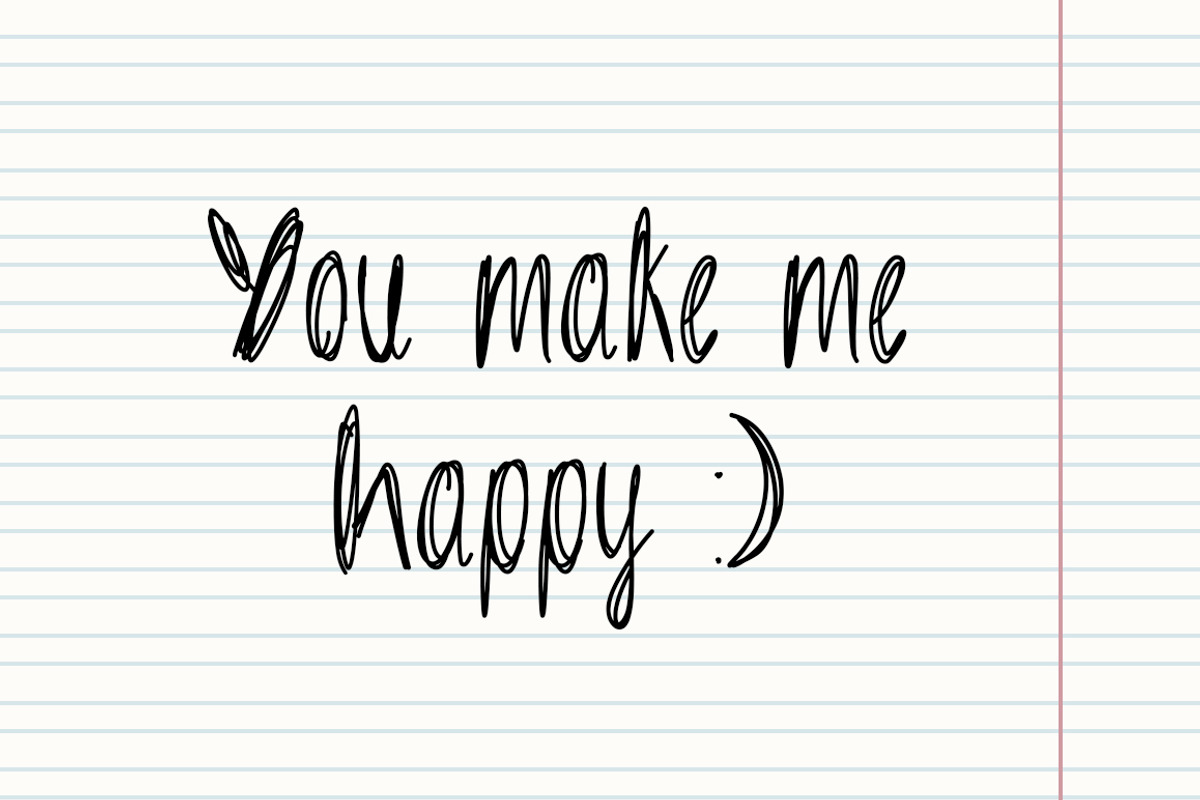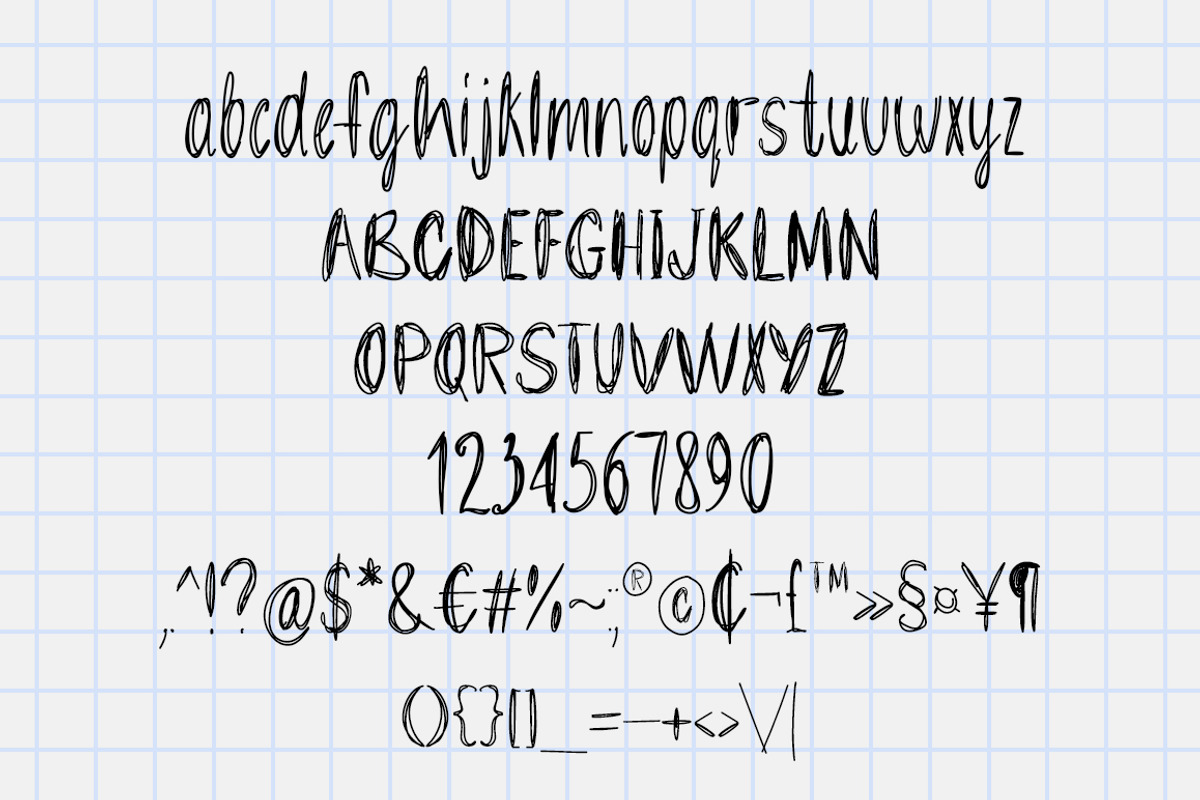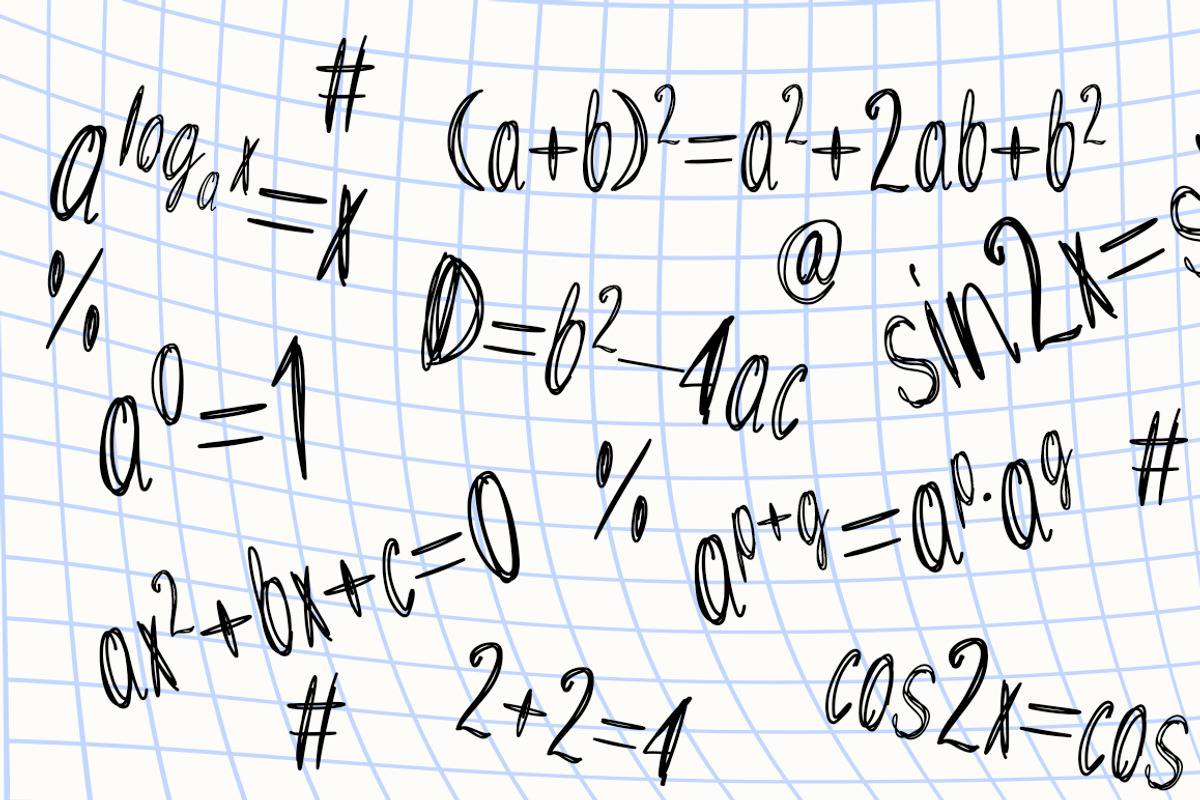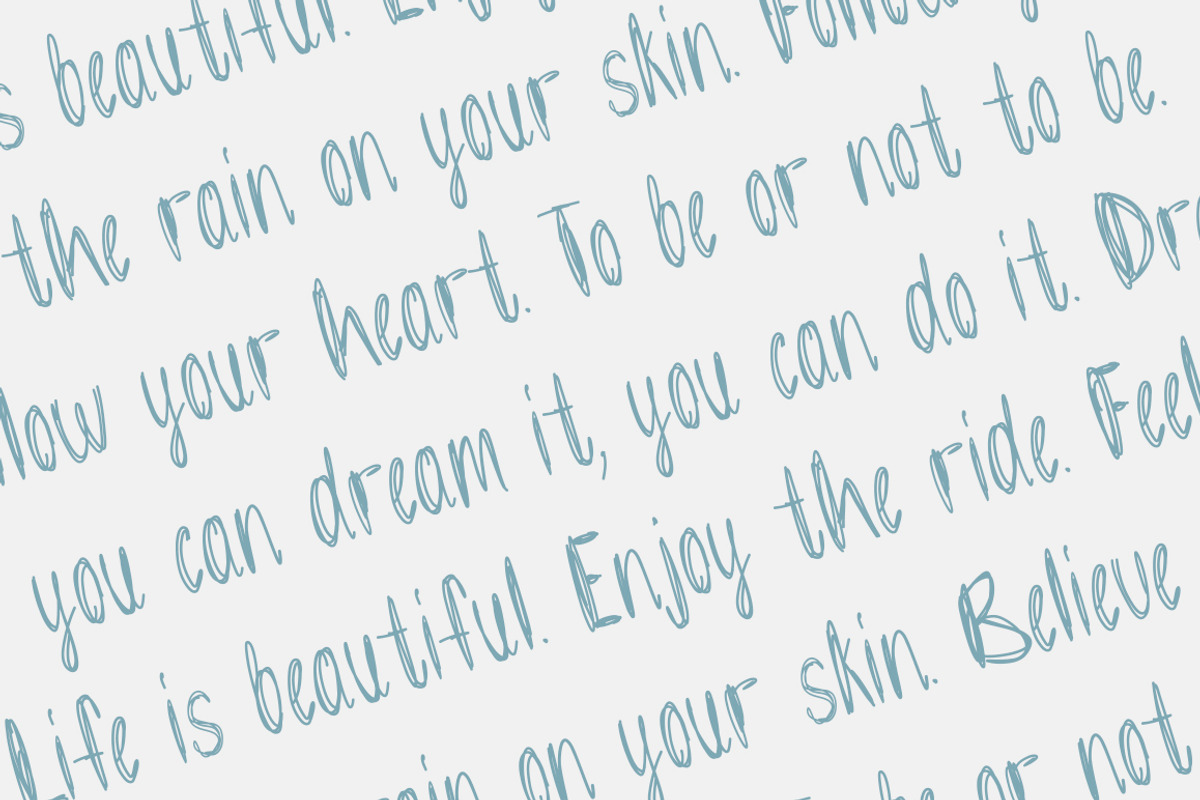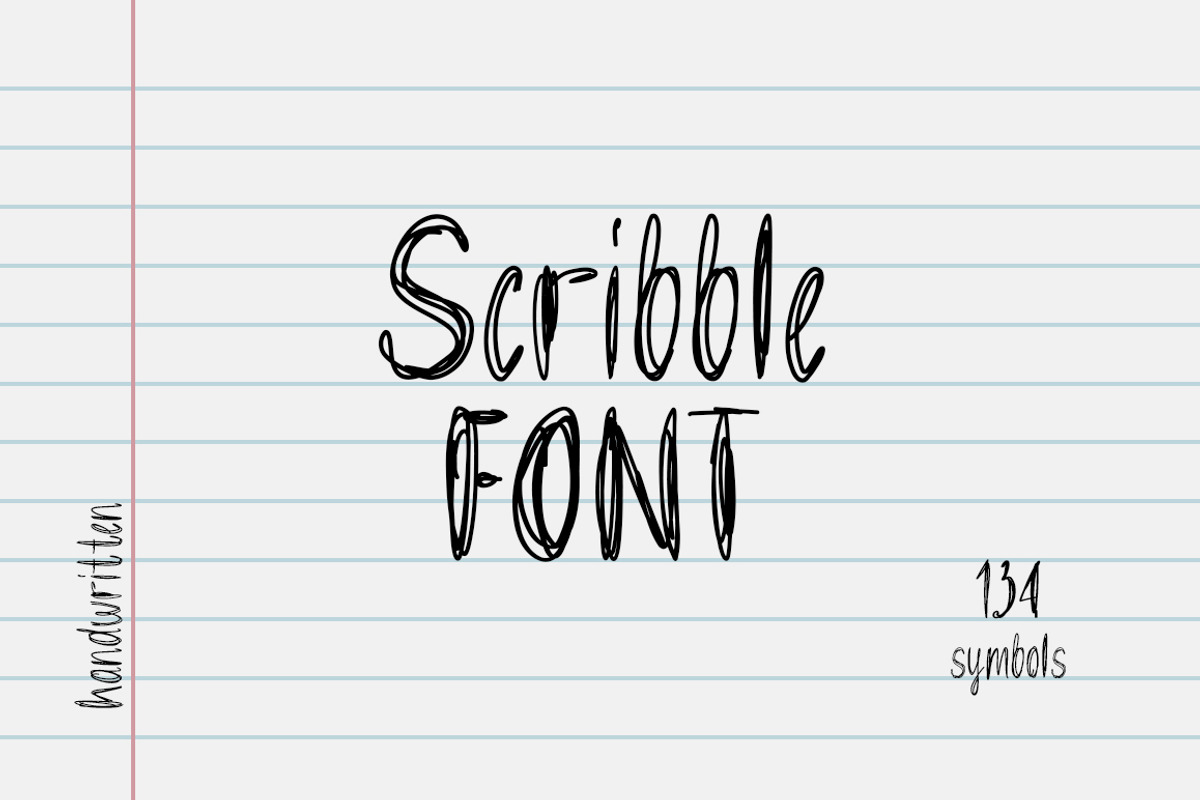
Scribble handwritten font
This scribbled font font features slightly uneven lines, which gives it the liveliness and character of handwritten text. Its imperfect geometry creates a feeling of warmth, coziness and individuality. This font is perfect for postcards, craft packaging, logos, illustrations, and for social media posts where a friendly and human style is important.